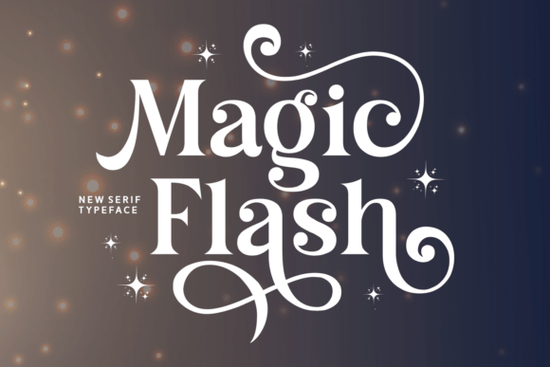
If you're looking for a serif font that feels like it just stepped out of a storybook complete with delicate swashes, gentle curves, and subtle sparkle then Magic Flash Font is worth your attention. It’s not overly ornate, but it carries enough personality to stand out on invitations, children’s book covers, or small-batch product labels. Designed with warmth and intention, this whimsical serif works especially well when you want elegance without formality, fantasy without fuss.
When does Magic Flash Font fit best?
This font shines in projects where tone matters as much as legibility. Think hand-poured candle labels with botanical illustrations, baby shower stationery with soft watercolor backgrounds, or boutique bakery packaging that leans into nostalgia and charm. Because it’s a serif with decorative flair not script it holds up well at medium sizes (like 24–48 pt) and pairs cleanly with simpler sans-serifs or neutral display fonts for body text.
It’s also a thoughtful choice for print-on-demand creators who sell themed digital downloads: fairy garden planners, enchanted journal templates, or printable party kits. Since the font includes alternate characters and swash variants (accessible via OpenType features in design apps like Illustrator or Affinity Designer), you can easily add variation without switching fonts.
How does it compare to other serif fonts on Creative Fabrica?
Magic Flash sits comfortably between classic refinement and lighthearted playfulness. If you’ve used Et Emilia Grace, you’ll notice Magic Flash has more movement in its terminals and a friendlier rhythm. It’s bolder than Bethany Elingston, which leans toward vintage elegance, and less structured than Wildflower Apothecary, which evokes apothecary labels and herbal lore.
For contrast, the Retro Fonts Collection offers clean mid-century serifs great for modern branding but doesn’t aim for the same fairytale mood. Magic Flash fills a specific niche: when you need something softly magical, not retro, not gothic, not minimalist.
It’s not a variable font, so you won’t find weight sliders but the single bold-weight design was built to be expressive on its own. That makes it reliable across platforms: it renders cleanly in Canva, Cricut Design Space, Silhouette Studio, and desktop apps alike.
Can you pair Magic Flash with other fonts?
Yes and thoughtfully. Try pairing it with a relaxed sans-serif like Montserrat Light or Quicksand for headings + body combinations. For packaging or greeting cards, layer it over a neutral serif like Merriweather or Lora for subtle hierarchy. Avoid pairing it with other highly decorative fonts unless you’re intentionally building maximalist layouts (e.g., festival posters or wedding suites where texture and contrast are part of the concept).
If you’re designing for kids’ products, keep line spacing generous and avoid tight kerning Magic Flash reads best with a little breathing room. And because it’s not a handwriting font, it avoids the “too casual” trap some crafters run into with script-based options.
Where can you see real examples?
Many designers share their Magic Flash projects on Instagram and Pinterest using hashtags like #magicflashfont or #creativefabricaserif. You can also explore how others use similar styles by checking out Magic Flash Font directly on Creative Fabrica to view mockups and customer uploads. Seeing how it looks on textured paper, foil-stamped boxes, or embroidered patches helps ground expectations before licensing.